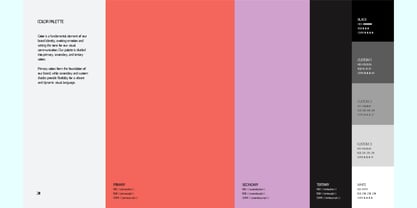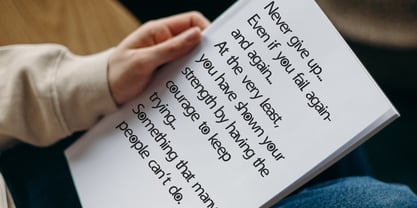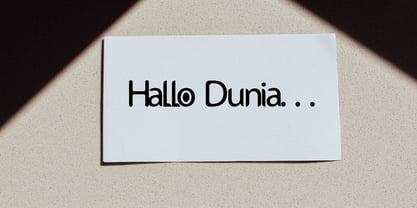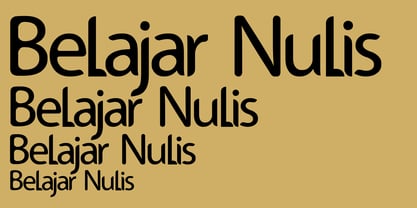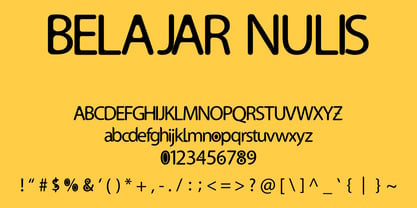
Belajar Nulis Tipis
by Randy Studio
The Belajar Nulis Tipis Font Family was designed by Randy Prince and published by Randy Studio. Belajar Nulis Tipis contains 1 styles. More about this family
Belajar Nulis is designed to make it easier to read letters of varying sizes. Derived from the phrase "Learn to Write," we designed this font to teach us that writing neatly is a great way to express who you are. The clear and clean design makes this font pleasing to the eye and easy to read.